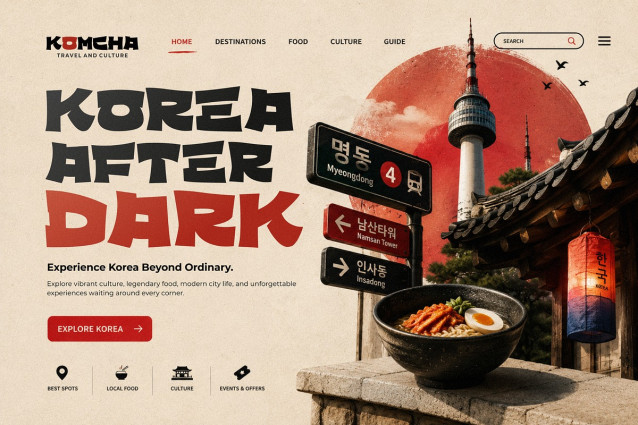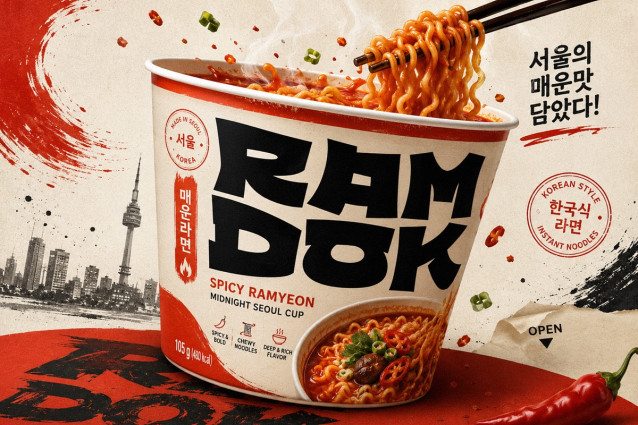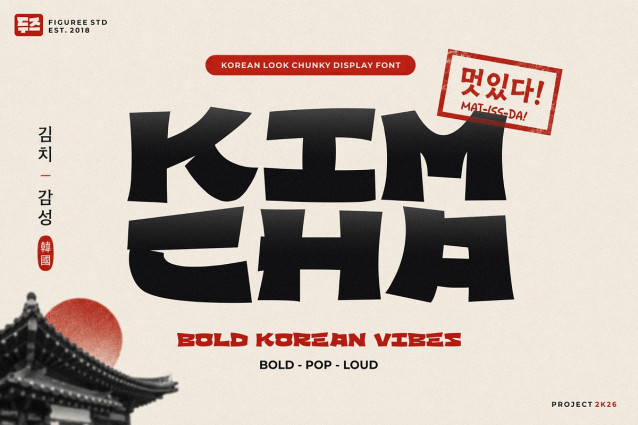
Kimcha Font
Kimcha Font – Korean Look Chunky Font, a bold display typeface inspired by the energetic visual style often seen in Korean-inspired graphics, food promotions, entertainment posters, signage, and modern digital content. With its thick letterforms and playful structure, this font is designed to create strong visual impact while keeping text readable and expressive.
The chunky style gives every word a confident and eye-catching appearance, making it suitable for posters, menus, packaging, social media graphics, video thumbnails, event promotions, and branding materials. Whether you are creating bold headlines or playful typography compositions, Kimcha delivers a distinct personality that instantly stands out.
Its uppercase character design creates a consistent and solid visual rhythm, helping designers build clean and impactful layouts. The letterforms are slightly irregular and dynamic, adding movement and character without reducing readability. This makes the font useful for both large-scale display text and attention-grabbing titles.